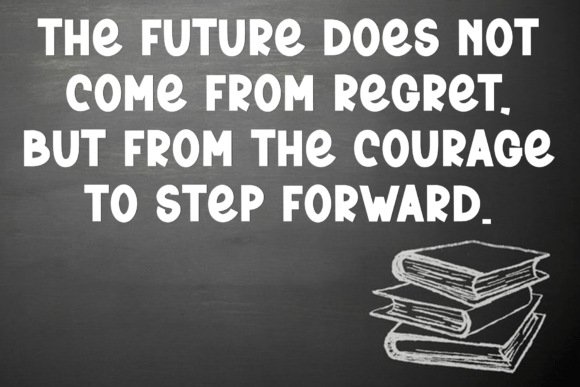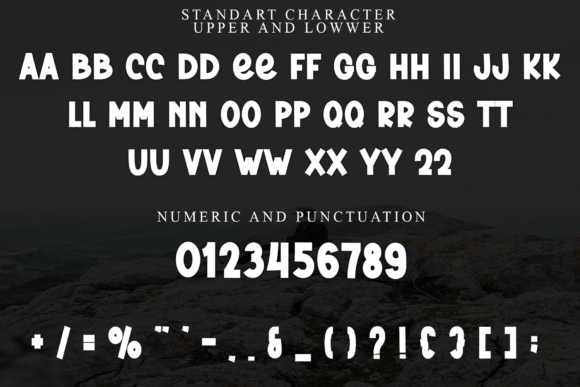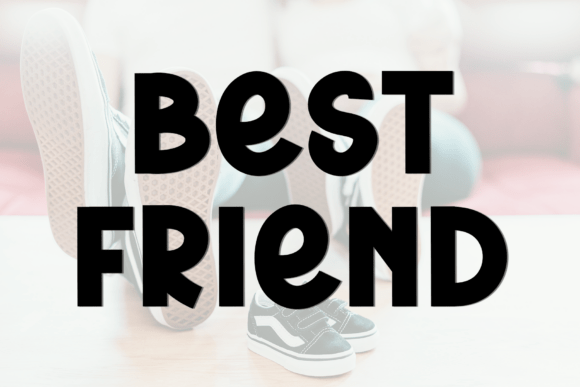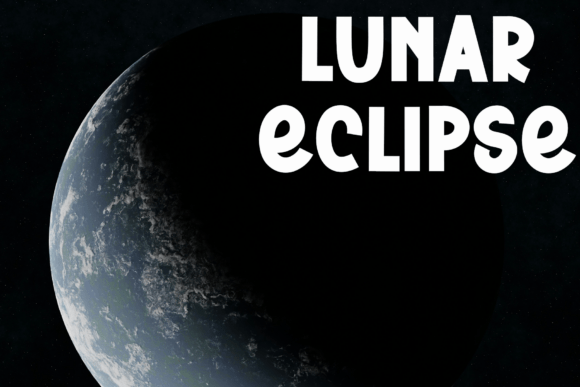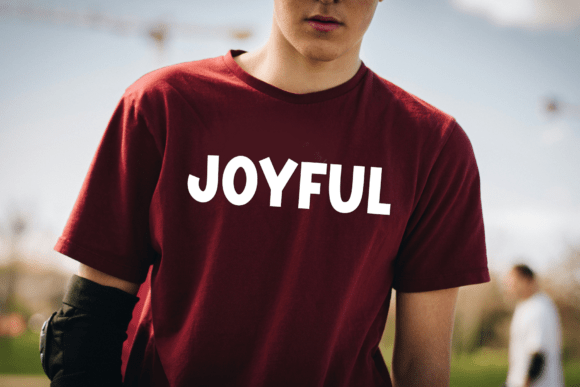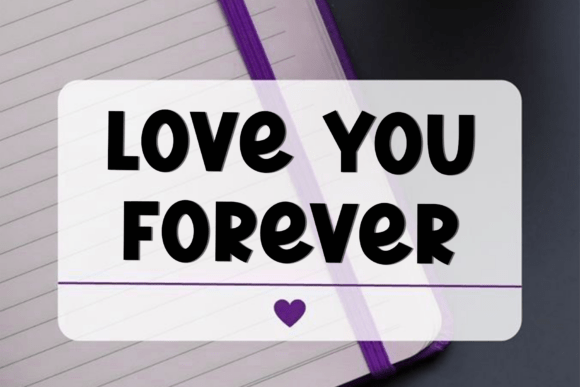
Introducing Happy Sunday Font: The Ultimate Display Font for Impactful Designs
Are you tired of using the same old fonts for your designs? Look no further than Happy Sunday Font, an ultra-bold, friendly, and impactful sans-serif display font that’s sure to take your creations to the next level. With its heavy weight and rounded terminals, Happy Sunday Font exudes a cheerful, strong, and highly visible presence that’s perfect for grabbing attention and making a lasting impression.
What Makes Happy Sunday Font So Special?
Happy Sunday Font is a playful style font that’s designed to make your designs stand out from the crowd. Its ultra-bold weight and rounded terminals give it a unique and approachable feel that’s perfect for headlines, posters, children’s book titles, attention-grabbing social media graphics, and casual branding. Whether you’re a designer, crafter, or DIY enthusiast, Happy Sunday Font is the perfect choice for anyone looking to add a touch of personality and whimsy to their designs.
Happy Sunday Font is a versatile font that’s perfect for a wide range of design projects. Here are just a few ideas to get you started:
- Headlines and Titles: Use Happy Sunday Font to create eye-catching headlines and titles that demand attention. Its bold weight and playful style make it perfect for newspaper and magazine headlines, book titles, and more.
- Posters and Flyers: Create stunning posters and flyers with Happy Sunday Font. Its highly visible presence and cheerful feel make it perfect for advertising, promotions, and events.
- Children’s Book Titles: Happy Sunday Font is a great choice for children’s book titles. Its playful style and approachable feel make it perfect for kids’ books, educational materials, and more.
- Social Media Graphics: Use Happy Sunday Font to create attention-grabbing social media graphics that stand out from the crowd. Its bold weight and playful style make it perfect for Facebook, Instagram, Twitter, and more.
- Casual Branding: Happy Sunday Font is also perfect for casual branding projects, such as logos, packaging, and merchandise. Its friendly and approachable feel make it perfect for brands that want to convey a sense of fun and approachability.
Why Choose Happy Sunday Font?
There are many reasons why Happy Sunday Font is the perfect choice for your design projects. Here are just a few:
- Unique and Playful Style: Happy Sunday Font has a unique and playful style that’s sure to grab attention and make a lasting impression.
- Highly Visible Presence: Its bold weight and rounded terminals give Happy Sunday Font a highly visible presence that’s perfect for headlines, posters, and other attention-grabbing designs.
- Approachable Feel: Happy Sunday Font has an approachable feel that’s perfect for brands and designers who want to convey a sense of friendliness and approachability.
- Easy to Read: Despite its bold weight, Happy Sunday Font is easy to read and understand, making it perfect for designs where clarity is key.
How to Use Happy Sunday Font
Using Happy Sunday Font is easy. Here are a few tips to get you started:
- Pair it with Other Fonts: Happy Sunday Font pairs well with other fonts, such as serif fonts, script fonts, and more. Experiment with different font combinations to find the perfect look for your design.
- Use it for Headlines and Titles: Happy Sunday Font is perfect for headlines and titles. Use it to create eye-catching headings that demand attention.
- Experiment with Colors: Happy Sunday Font looks great in a variety of colors. Experiment with different colors and gradients to find the perfect look for your design.
In conclusion, Happy Sunday Font is a unique and impactful sans-serif display font that’s perfect for designers, crafters, and DIY enthusiasts. Its ultra-bold weight, rounded terminals, and playful style make it perfect for headlines, posters, children’s book titles, attention-grabbing social media graphics, and casual branding. With its highly visible presence and approachable feel, Happy Sunday Font is sure to take your designs to the next level.